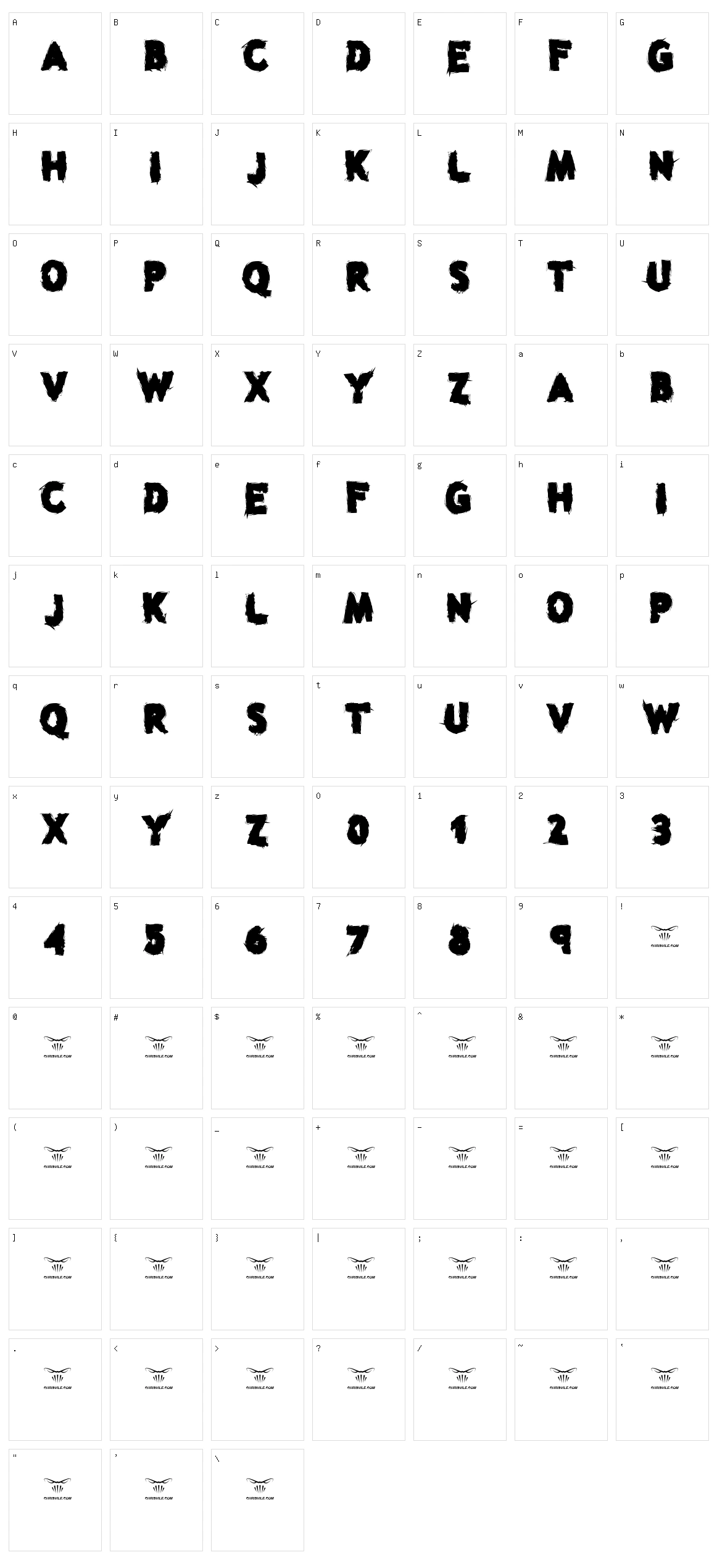
The free font Why so serious is carefully designed by Font Monger, showcasing a thoughtful balance of creativity and usability and falls under the Horror font style. When you download the ZIP file, it contains only 83.96 KB of font files, making it lightweight and quick to download. Please review the license details below to understand permitted usage and distribution rights. If license information is not available, we recommend using this font for personal projects only or contacting the author directly for commercial usage permissions.